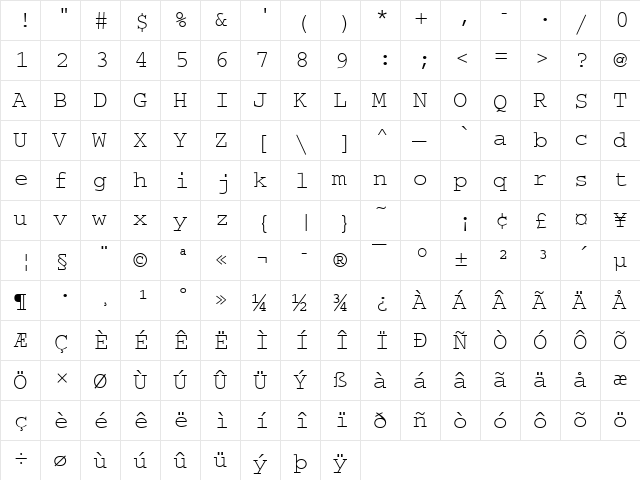
Courier Becker Regular
Design Context for Courier Becker Typeface
Courier Becker uses fixed-width spacing throughout, giving it the structured, systematic character associated with coding environments and technical documentation.
Well-suited to data-driven dashboards, coding tutorials, and any design that wants to reference the world of programming.
Pro Tip: Use Courier Becker with slightly increased line-height for extended reading — fixed-width spacing can feel dense in longer passages without extra breathing room.